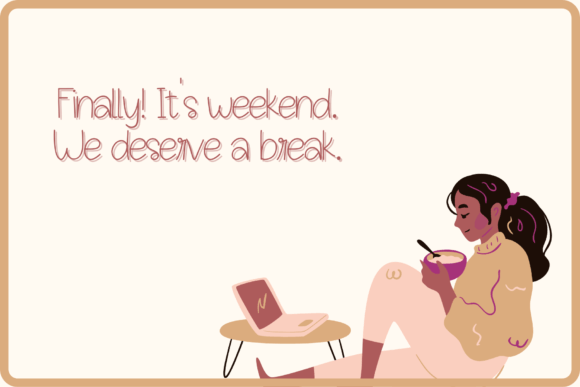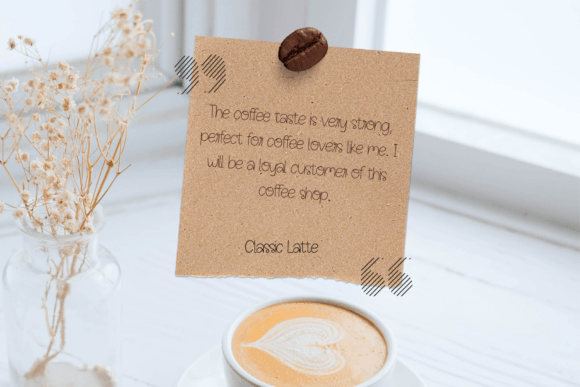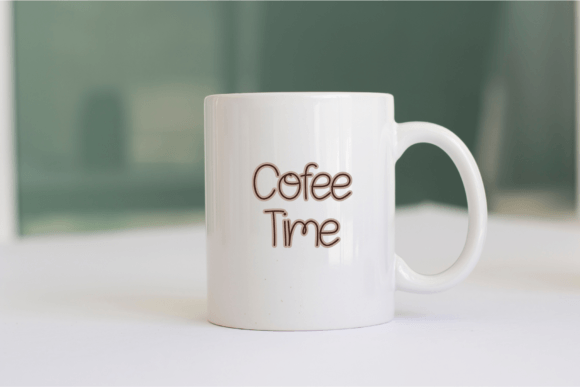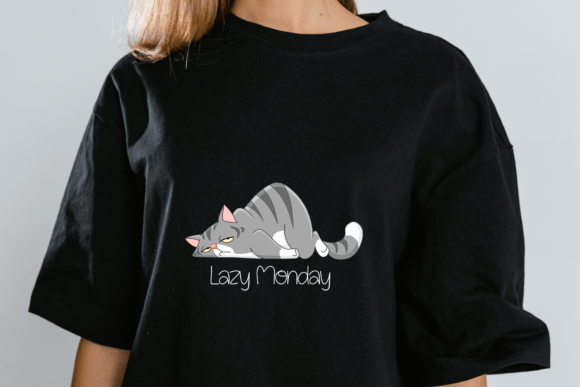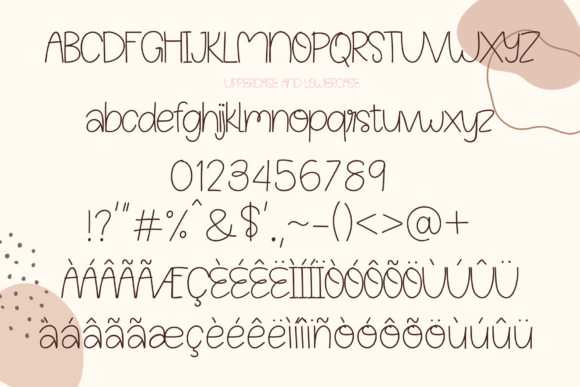
The Perfect Font for Your Next Creative Project
Have you ever stared at a blank canvas, wondering what font would bring your design to life? You know the feeling – the excitement of a new project, the pressure to make it perfect, and the uncertainty of which font will set the tone. For designers, this is a familiar scenario, and one that can be daunting. But what if you had the perfect font to simplify your process and elevate your designs?
Enter Easy Message Font, a friendly handwritten font designed to add elegance and class to any project. Whether you’re creating a logo, wedding design, or social media post, Easy Message Font is the perfect companion to help you express your creativity. With its versatility and sophistication, this font is a valuable addition to any designer’s toolkit, making it easy to bring your vision to life.
Key Features of Easy Message Font
- Character Set: The font includes a wide range of characters, including Latin, Cyrillic, and Greek alphabets, as well as punctuation marks and symbols.
- Unique Characteristics: Easy Message Font features a clean, modern design with a subtle rounded edge, making it perfect for use in digital communication, such as messaging apps, social media, and email.
- Language Support: The font supports multiple languages, including English, Spanish, French, German, Chinese, and many others, making it a great choice for global communication.
Easy Message Font Review
I recently had the chance to work with the Easy Message Font, and I’m sharing my honest thoughts on it.
- Easy to read: The font is clean and legible, making it perfect for digital communication.
- Neutral style: The font’s neutral style allows it to blend in with most designs without drawing attention away.
- High-quality rendering: The font renders well on various devices and screen sizes.
- Limited expressive power: The font’s neutral style can make it feel a bit bland and unengaging at times.
- No bold variations: The font lacks bold variations, which can limit its use in certain contexts.
- Not suitable for headlines: The font’s size and style are not ideal for headlines or titles.
The Easy Message Font is a solid choice for digital communication, but it may not be the best fit for every design project. While it excels at being easy to read and neutral in style, it falls short in terms of expressive power and bold variations. If you’re looking for a clean and legible font for body text, the Easy Message Font is worth considering. However, if you need a font for headlines or want more expressive options, you may want to look elsewhere.
Easy Message Font Practical Application Guide
Tips for Getting the Most Out of Easy Message Font
For best results, use Easy Message Font in conjunction with bold or italic styles to emphasize important text.
Experiment with different font sizes and colors to create visual hierarchy and draw attention to key messages.
Easy Message Font is ideal for:
- Creating eye-catching headlines and titles.
- Designing social media posts and advertisements.
- Developing marketing materials and brochures.
What is the recommended font size for optimal readability with the Easy Message Font?
The recommended font size for optimal readability with the Easy Message Font is between 12-14 points. However, font size will depend on the specific application and intended use. Experiment with different font sizes to find the most legible and visually appealing solution for your design.